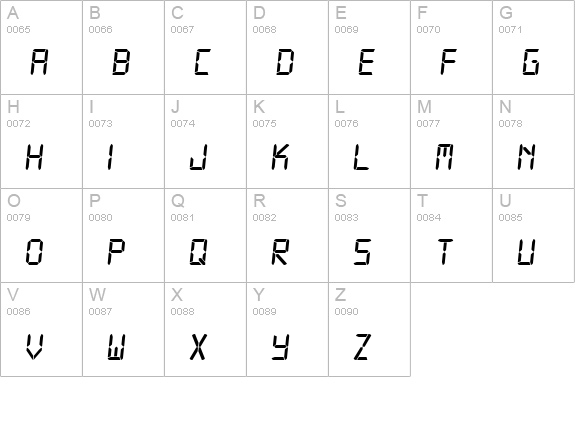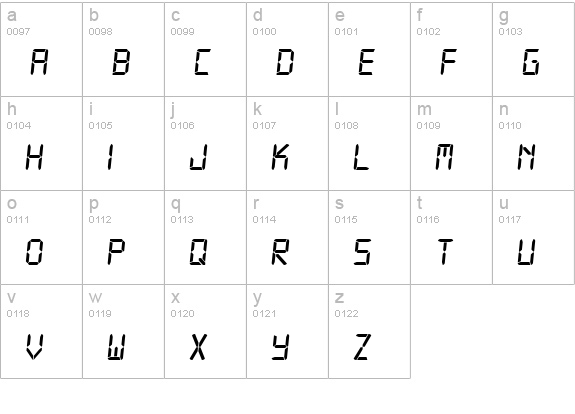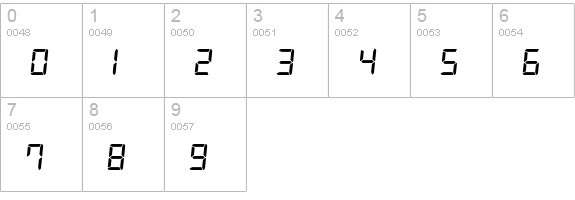
Digital-7 Font Details
Digital-7 is a modern and sleek font that brings a touch of digital sophistication to any design project. With its clean lines and futuristic aesthetic, this font is perfect for adding a contemporary edge to websites, logos, posters, and more. The unique and eye-catching design of Digital-7 captures the essence of the digital era, making it the ideal choice for projects that require a cutting-edge look. Whether you're designing for technology companies, gaming platforms, or innovative start-ups, this font will surely make a bold statement. But what sets Digital-7 apart from other fonts is that it is not only visually stunning, but also free to download. Yes, you read that right – this incredible font is freely available to download at FontsMarket.com. This means that you can enjoy all the benefits of this exceptional font without breaking the bank. So why wait? Enhance your designs with the edgy and modern vibes of Digital-7. Download it for free at FontsMarket.com and discover the endless possibilities it brings to your creative ventures.